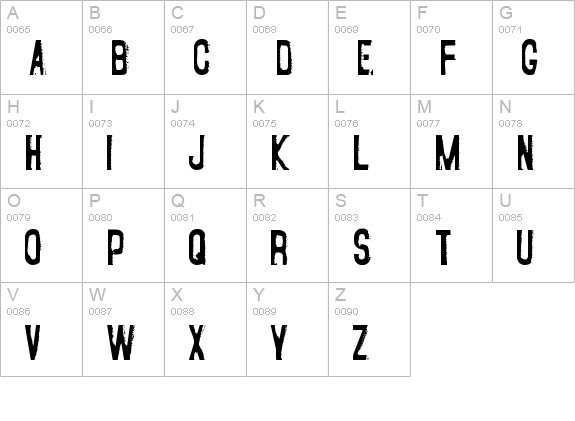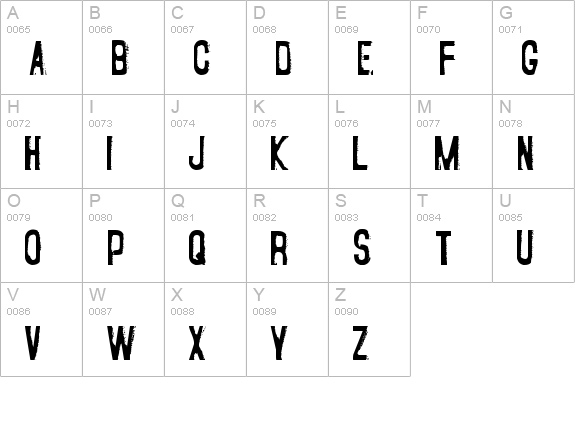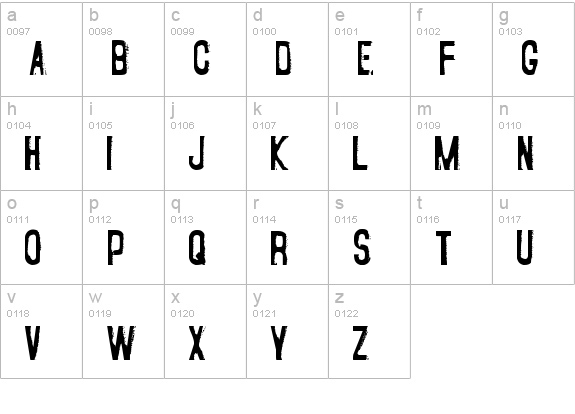
Fear of a Punk Planet Font Details
The Fear of a Punk Planet font is a rebellious and edgy typeface that embodies the raw energy and attitude of the punk rock culture. With its bold strokes and jagged edges, this font exudes a sense of defiance and nonconformity. Perfect for creating eye-catching designs that make a statement, Fear of a Punk Planet is a must-have for anyone looking to infuse their projects with a dose of punk rock flair. Best of all, Fear of a Punk Planet font is freely available to download at FontsMarket.com. So whether you're working on a poster for a punk rock show or designing a t-shirt for a music festival, this font is sure to add a touch of rebellious spirit to your creations. Download it now and let your creativity run wild with Fear of a Punk Planet font.